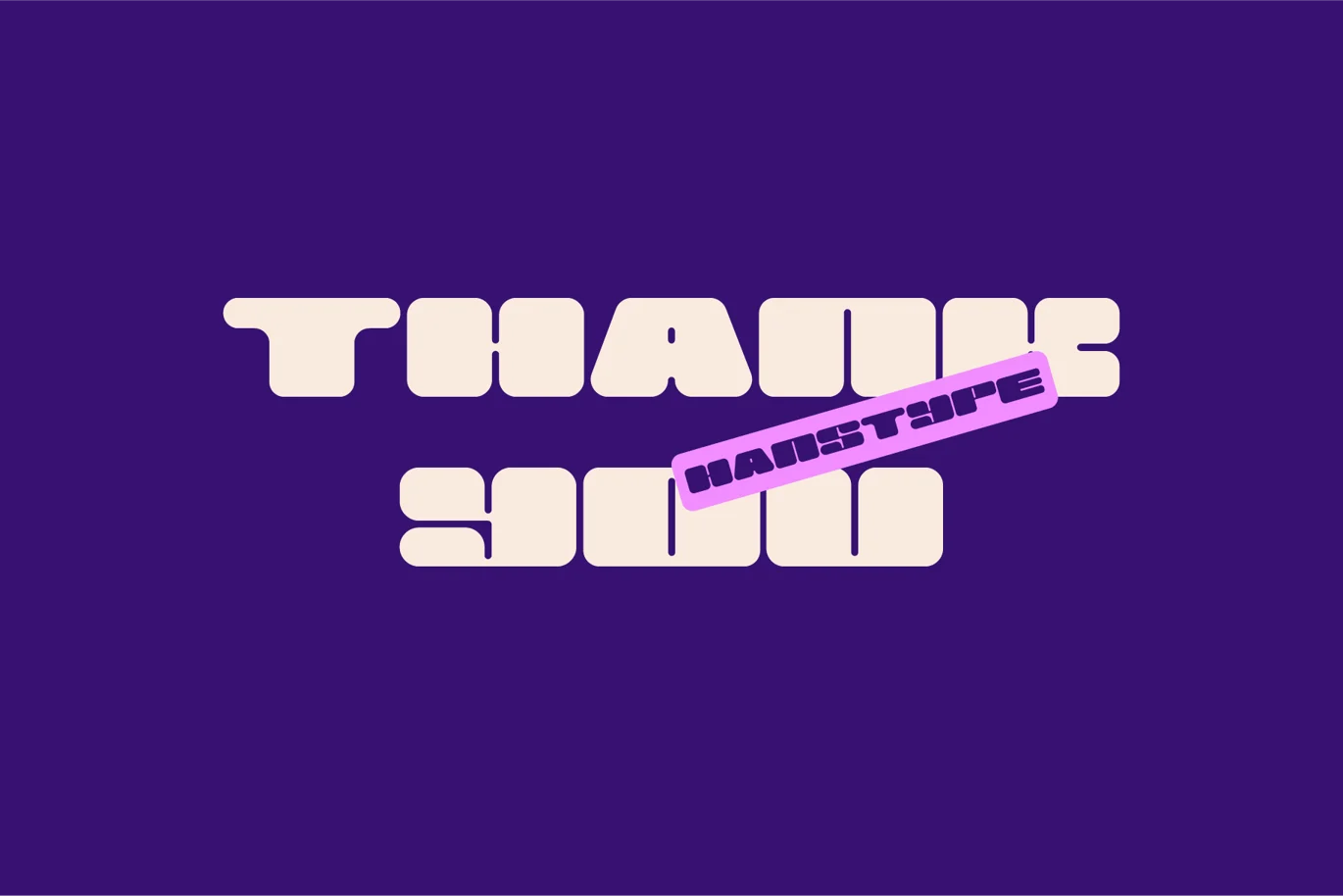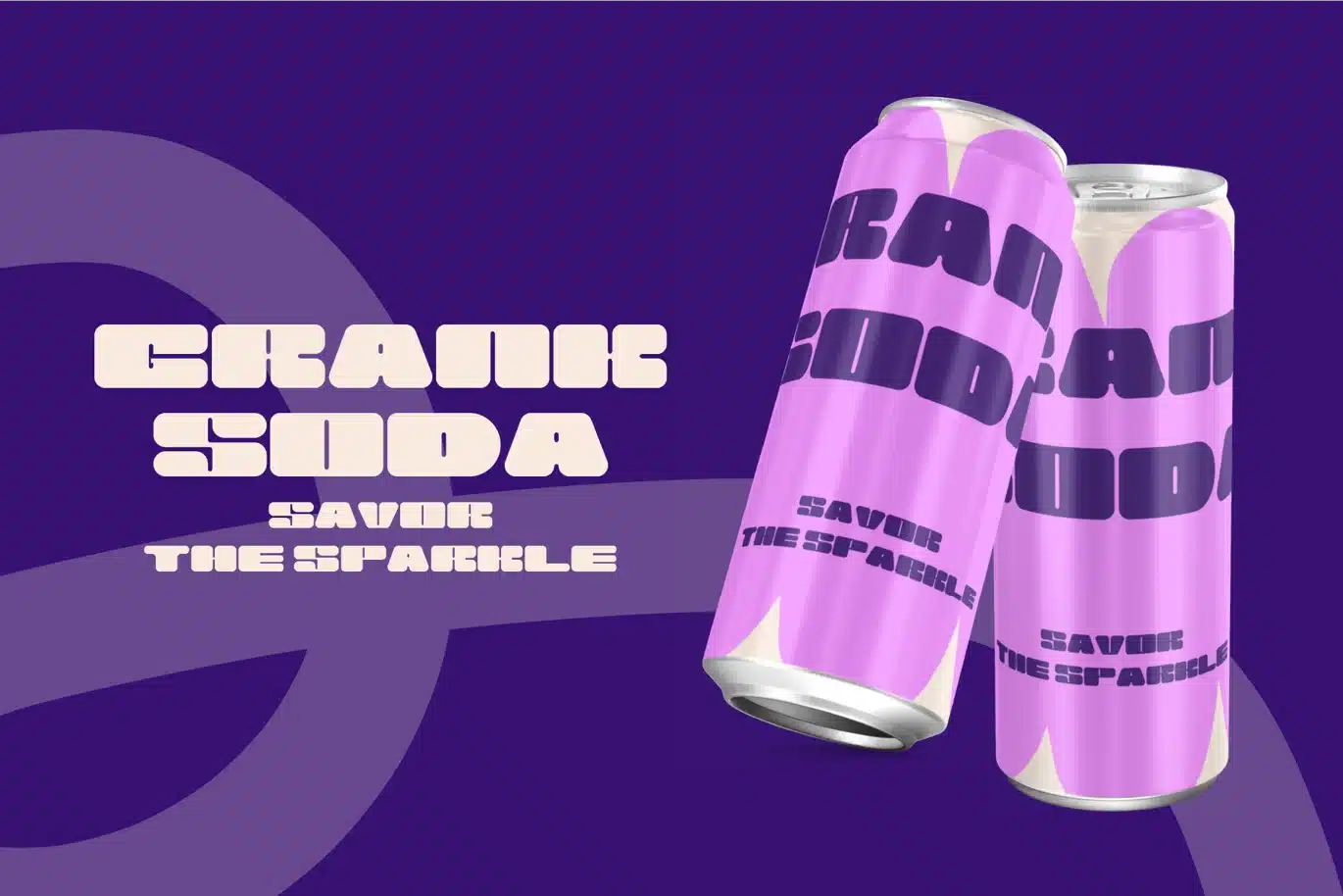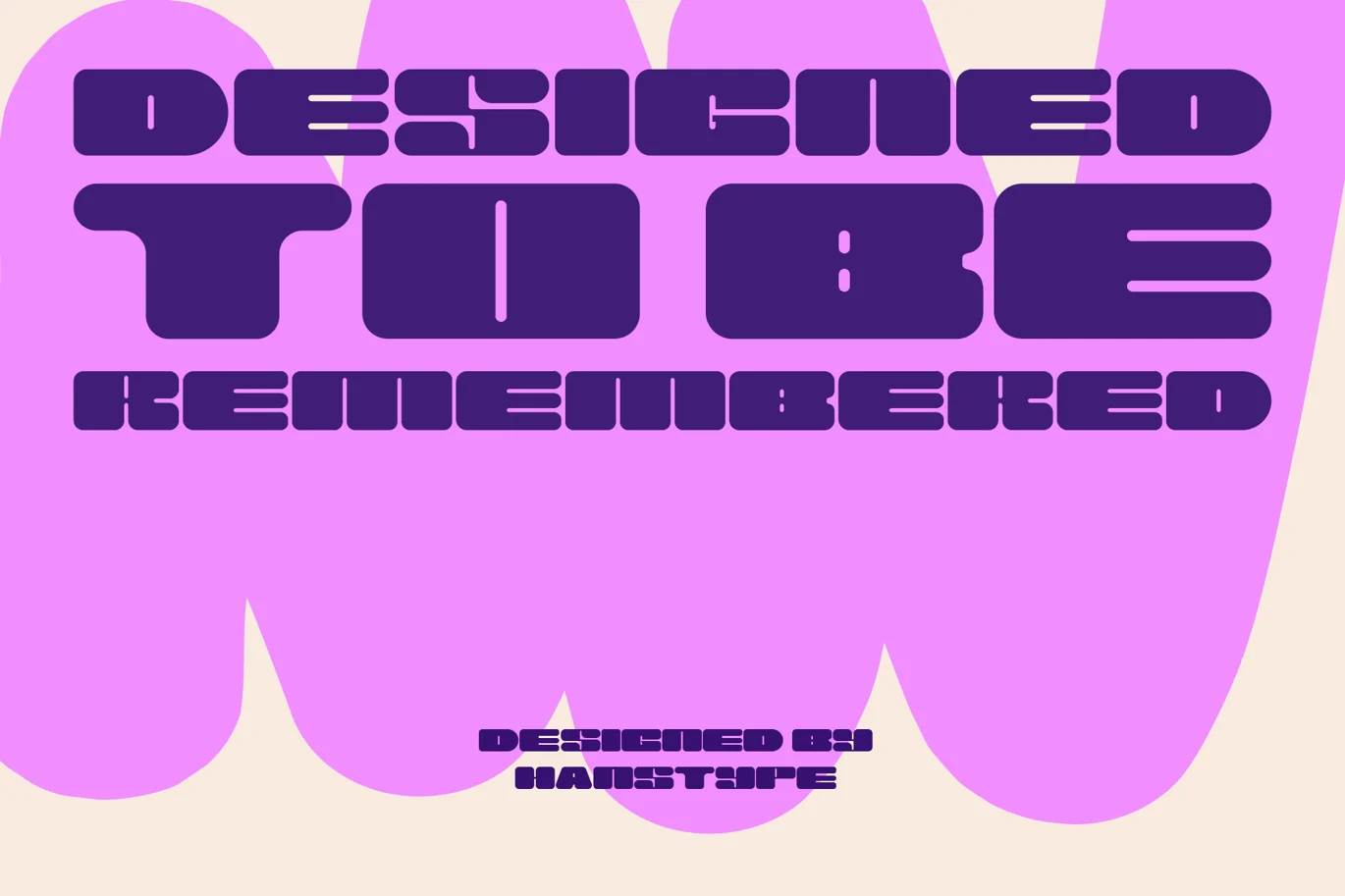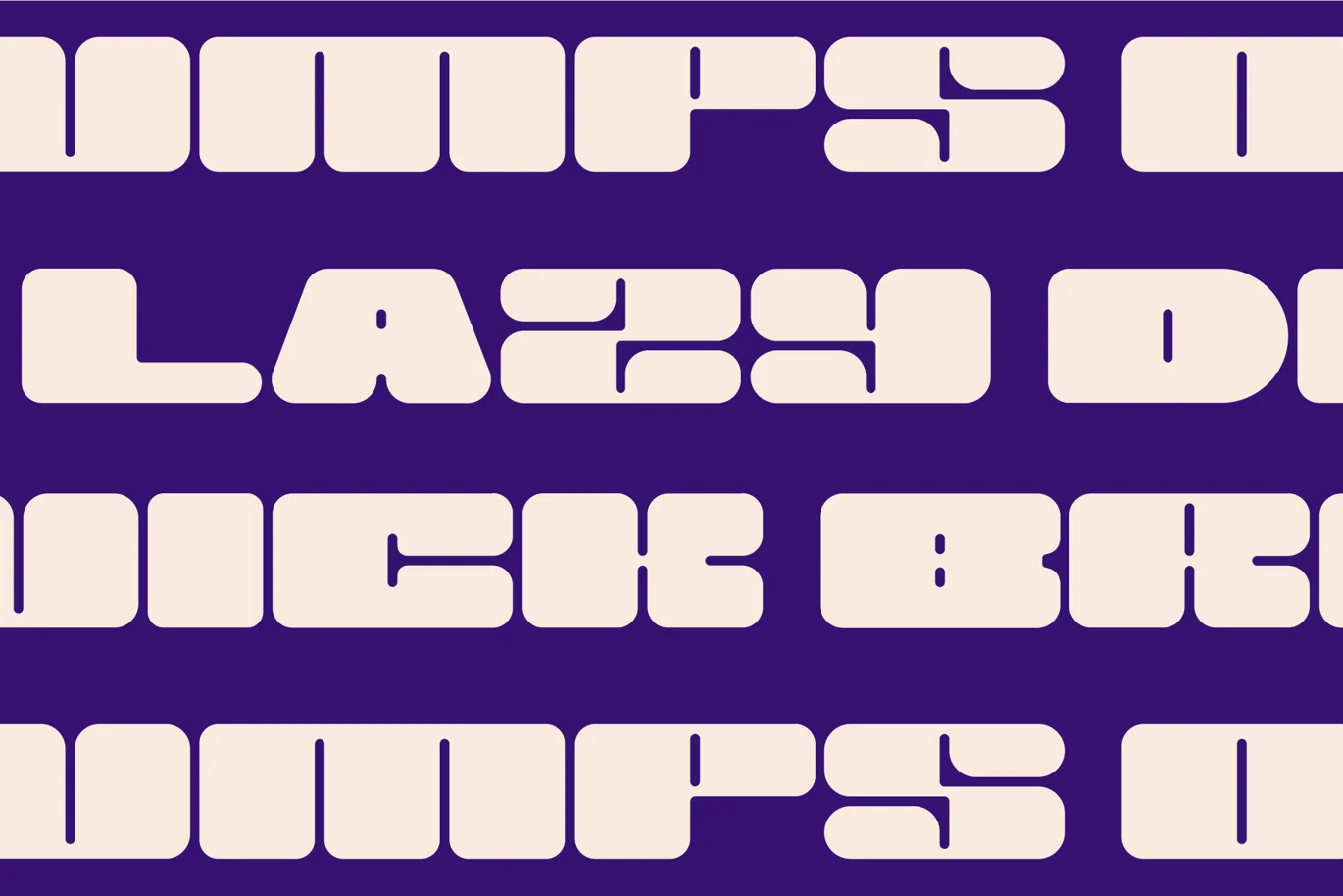
Drafus – Bold Display Font
Drafus is a bold font with a rounded concept, designed to deliver a strong, modern presence while maintaining a friendly and approachable feel. The bold weight ensures it makes a significant impact, making it perfect for use in headlines, logos, and branding where visibility and prominence are crucial.